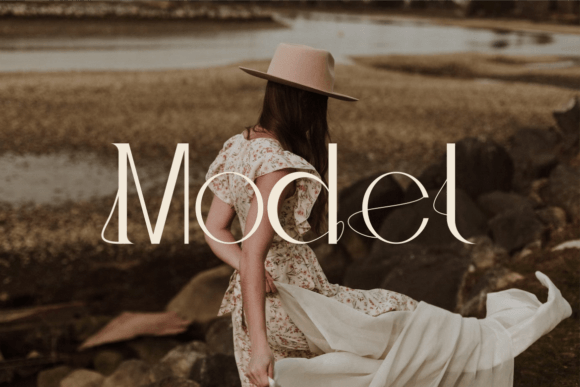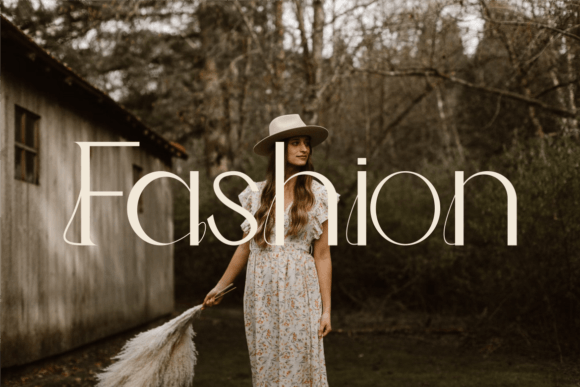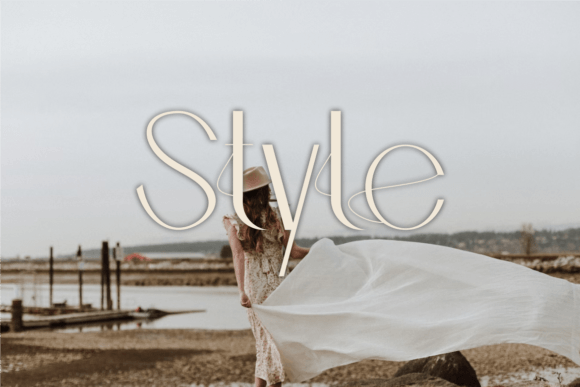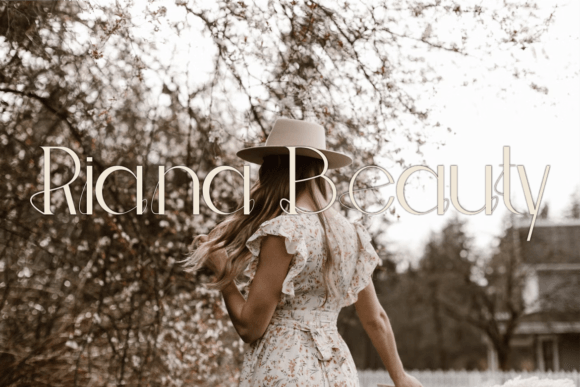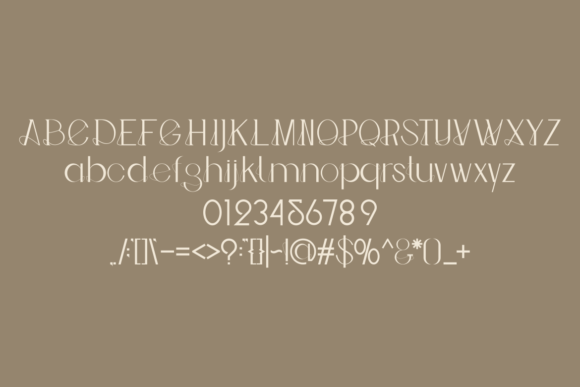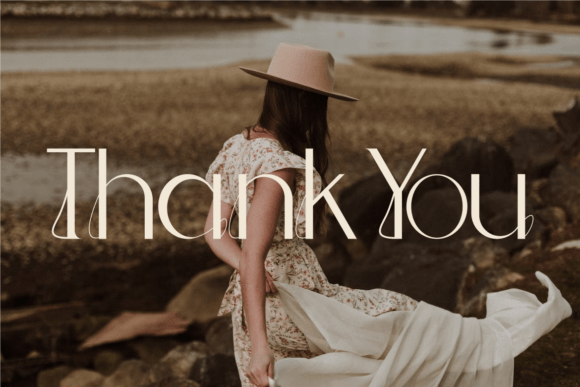
Egfilla Glow Font: Elevate Your Designs with a Retro Touch
Are you a designer or crafter looking to add a unique and stylish flair to your projects? Look no further than the Egfilla Glow Font, a chic serif font that’s perfect for bringing a touch of nostalgia to your designs. In this article, we’ll dive into the features and benefits of Egfilla Glow, and explore how you can use it to take your designs to the next level.
What is Egfilla Glow Font?
Egfilla Glow is a stylish and chic serif font that’s designed to add a special retro touch to any design idea you can think of. With its classic serif lines and elegant curves, Egfilla Glow is the perfect choice for designers and crafters who want to create unique and eye-catching projects. Whether you’re working on a logo, a poster, a website, or a craft project, Egfilla Glow is sure to make a statement.
Features of Egfilla Glow Font
So, what makes Egfilla Glow so special? Here are just a few of the features that set it apart:
- Classic Serif Style: Egfilla Glow features a classic serif style that’s reminiscent of vintage designs from the past. Its elegant curves and lines are sure to add a touch of sophistication to any project.
- Retro Touch: With Egfilla Glow, you can add a retro touch to your designs that’s sure to stand out. Whether you’re going for a vintage vibe or just want to add some visual interest to your project, Egfilla Glow is the perfect choice.
- Highly Versatile: Egfilla Glow is a highly versatile font that can be used in a wide range of design projects. From logos and posters to websites and craft projects, Egfilla Glow is the perfect choice for any designer or crafter.
- Easy to Read: Despite its elegant and stylish design, Egfilla Glow is also highly readable. This makes it perfect for use in body text, headings, and titles.
Benefits of Using Egfilla Glow Font
So, why should you choose Egfilla Glow for your next design project? Here are just a few of the benefits of using this stylish and chic serif font:
- Adds Visual Interest: Egfilla Glow is sure to add visual interest to any design project. Its classic serif lines and elegant curves make it a standout choice for designers and crafters who want to create unique and eye-catching projects.
- Evokes Nostalgia: With Egfilla Glow, you can evoke a sense of nostalgia in your designs. This is perfect for designers and crafters who want to create projects that have a vintage or retro feel.
- Enhances Brand Identity: Egfilla Glow can also be used to enhance brand identity. Its stylish and chic design makes it perfect for use in logos, branding materials, and other marketing collateral.
- Easy to Pair with Other Fonts: Finally, Egfilla Glow is easy to pair with other fonts. This makes it perfect for use in a wide range of design projects, from posters and flyers to websites and social media graphics.
How to Use Egfilla Glow Font
So, how can you use Egfilla Glow in your next design project? Here are a few ideas to get you started:
- Logos and Branding: Egfilla Glow is perfect for use in logos and branding materials. Its stylish and chic design makes it a great choice for businesses and organizations that want to create a unique and memorable brand identity.
- Posters and Flyers: Egfilla Glow is also great for use in posters and flyers. Its classic serif lines and elegant curves make it a standout choice for designers who want to create eye-catching and effective marketing materials.
- Websites and Social Media: Egfilla Glow can also be used on websites and social media graphics. Its highly readable design makes it perfect for use in body text, headings, and titles.
- Craft Projects: Finally, Egfilla Glow is a great choice for craft projects. Its stylish and chic design makes it perfect for use in handmade cards, scrapbooking, and other craft projects.
In conclusion, Egfilla Glow is a stylish and chic serif font that’s perfect for designers and crafters who want to add a retro touch to their projects. With its classic serif lines, elegant curves, and highly versatile design, Egfilla Glow is sure to make a statement in any design project. Whether you’re working on a logo, a poster, a website, or a craft project, Egfilla Glow is the perfect choice for anyone who wants to create unique and eye-catching designs.